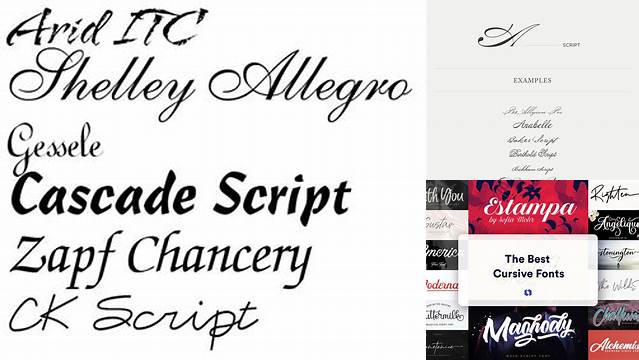
Script Font Examples: A Comprehensive Guide
Hey guys! Ever wondered about those elegant, flowing fonts that look like handwriting? Those are script fonts, and they add a touch of class and personality to any design. This guide dives deep into the world of script fonts, giving you tons of examples and inspiration. We'll cover everything from classic calligraphy styles to modern, playful scripts, so you'll be a script font pro in no time! Let's get started!
Script Fonts: An Overview
Before we dive into specific examples, let's quickly cover the basics. Script fonts are designed to mimic the flowing strokes of handwriting. They can range from formal and traditional to casual and whimsical. Understanding the different types and their uses is key to choosing the right one for your project. Whether you're designing a wedding invitation, a logo, or a website header, the right script font can make all the difference. The key to choosing the right script font lies in understanding the message you want to convey and the overall aesthetic you're aiming for.
Calligraphic Script Fonts
Calligraphic Fonts: Classic Elegance
Calligraphic script fonts are inspired by traditional calligraphy, characterized by their elegant, flowing strokes and formal appearance. These fonts often feature thick and thin lines, adding a touch of sophistication to any design. Think of fonts that look like they were penned by a skilled calligrapher. These are perfect for wedding invitations, certificates, and anything that needs a touch of timeless elegance. The beauty of calligraphic script fonts lies in their ability to evoke a sense of tradition and refinement. Using them can instantly elevate your design, making it feel more polished and professional. Choosing the right calligraphic script font involves considering the specific mood and formality you want to achieve.
Copperplate Script Font
Copperplate is a classic calligraphic style known for its delicate, flowing lines and high contrast between thick and thin strokes. This script font exudes elegance and is often used for formal invitations, certificates, and other high-end designs. Imagine the beautifully handwritten invitations of the 18th and 19th centuries – that's the essence of Copperplate. Its refined appearance makes it a popular choice for projects that require a touch of sophistication. When using Copperplate script font, consider its legibility, especially in smaller sizes. While it's stunning, it's crucial that your message remains clear and readable.
Spencerian Script Font
Spencerian script font is another classic calligraphic style, characterized by its graceful, flowing letters and smooth connections. It's a bit less formal than Copperplate but still maintains a high level of elegance. Think of old business documents and formal correspondence – Spencerian was a popular choice for these applications. It’s perfect for adding a touch of class to invitations, branding materials, and more. Spencerian script font is all about fluidity and movement, creating a sense of dynamism on the page. This makes it a great choice for projects that need to feel both elegant and approachable.
Formal Script Fonts
Formal Script Fonts: Sophistication and Grace
Formal script fonts are designed for occasions that demand elegance and sophistication. They often feature elaborate flourishes and refined letterforms, making them perfect for wedding invitations, formal announcements, and high-end branding. These fonts are the go-to choice when you want to convey a sense of luxury and exclusivity. The key to using formal script fonts effectively is to pair them with a clean, simple secondary font to ensure readability. Overdoing the flourishes can make your design look cluttered, so balance is essential. Choosing the right formal script font can instantly elevate your project, giving it a touch of timeless beauty.
Edwardian Script Font
Edwardian script font is a classic choice for formal designs, known for its ornate flourishes and elegant letterforms. It evokes a sense of old-world charm and sophistication, making it ideal for wedding invitations, certificates, and other special occasions. Imagine the graceful handwriting of the Edwardian era – that’s the inspiration behind this script font. Its delicate details and flowing lines add a touch of romance and refinement to any project. While Edwardian script font is beautiful, it’s important to use it sparingly to avoid overwhelming your design. A little goes a long way in conveying its elegance.
Kuenstler Script Font
Kuenstler script font is another elegant option for formal designs, characterized by its flowing, rhythmic strokes and calligraphic feel. It's slightly less ornate than Edwardian but still maintains a high level of sophistication. Think of it as a more modern take on classic calligraphy. This script font is perfect for adding a touch of elegance to invitations, branding, and more. The rhythmic quality of Kuenstler script font makes it visually appealing and easy on the eyes, even in longer passages of text. This makes it a versatile choice for projects that need to be both beautiful and readable.
Casual Script Fonts
Casual Script Fonts: Friendly and Approachable
Casual script fonts are all about creating a friendly, approachable vibe. They often mimic natural handwriting, with a relaxed and informal feel. These fonts are perfect for branding, social media graphics, and any project where you want to connect with your audience on a personal level. The beauty of casual script fonts lies in their versatility. They can be used for a wide range of applications, from playful designs to more serious projects that need a touch of warmth. Choosing the right casual script font involves considering the specific personality you want to convey. Are you going for a fun, whimsical feel or a more sophisticated, handwritten look?
Brush Script Font
Brush script font mimics the look of handwriting created with a brush, featuring thick and thin strokes and a dynamic, hand-painted feel. It’s a popular choice for designs that need a touch of personality and informality. Think of hand-lettered signs and posters – that’s the essence of Brush script font. Its energetic appearance makes it a great choice for logos, headlines, and more. When using Brush script font, it’s important to consider its legibility, especially in smaller sizes. While it's visually striking, clarity is key to ensuring your message is understood.
Handwritten Script Font
Handwritten script fonts are designed to look like, well, actual handwriting! They often have a slightly imperfect, natural feel, making them perfect for adding a personal touch to your designs. Think of handwritten notes and letters – that’s the vibe these fonts are going for. They’re great for invitations, social media graphics, and anything that needs a human touch. The charm of handwritten script fonts lies in their authenticity. They make your designs feel more personal and relatable, which can be a big advantage in connecting with your audience.
Modern Script Fonts
Modern Script Fonts: Sleek and Stylish
Modern script fonts blend the elegance of traditional script with a contemporary aesthetic. They often feature clean lines, geometric shapes, and a minimalist feel, making them perfect for modern branding, websites, and editorial designs. These fonts are all about creating a sophisticated yet approachable look. The key to using modern script fonts effectively is to pair them with a clean, sans-serif font for contrast. This combination creates a balanced and visually appealing design. Choosing the right modern script font can give your project a fresh, contemporary edge.
Signature Script Font
Signature script fonts mimic the look of a handwritten signature, with flowing strokes and a personal touch. They're often used for logos, watermarks, and adding a personal touch to designs. Think of the elegant signature at the bottom of a letter – that's the inspiration behind these fonts. They're perfect for creating a sense of authenticity and professionalism. When using Signature script font, it’s important to ensure that it’s legible and reflects the personality of the brand or individual it represents. A well-chosen signature script font can be a powerful branding tool.
Display Script Font
Display script fonts are designed to be used in larger sizes, such as headlines and titles. They often feature bold strokes, unique letterforms, and a strong visual impact. These fonts are all about making a statement. Think of eye-catching posters and magazine covers – that’s the kind of impact Display script fonts can create. The key to using Display script fonts effectively is to choose one that complements your overall design aesthetic. While they're designed to stand out, they should still harmonize with the other elements of your project.
Retro Script Fonts
Retro Script Fonts: Vintage Charm
Retro script fonts evoke a sense of nostalgia, often inspired by the lettering styles of the mid-20th century. They feature flowing lines, playful curves, and a vintage aesthetic, making them perfect for retro-themed designs, branding, and more. Think of old advertisements and signage – that’s the kind of charm these fonts bring to the table. The beauty of retro script fonts lies in their ability to transport your audience to another time. They're perfect for creating a sense of history and authenticity in your designs. Choosing the right retro script font involves considering the specific era you want to evoke.
1950s Script Font
1950s script fonts are characterized by their playful curves, bold strokes, and a cheerful, optimistic vibe. They evoke the iconic designs of the 1950s, making them perfect for retro-themed projects and designs with a vintage feel. Think of classic diner signs and soda shop logos – that's the essence of 1950s script font. Their fun, energetic appearance makes them a great choice for projects that need a touch of nostalgia. When using 1950s script font, it’s important to balance their boldness with clean, simple design elements to avoid overwhelming your audience.
1960s Script Font
1960s script fonts often feature groovy, psychedelic curves and a bold, free-spirited aesthetic. They evoke the iconic designs of the 1960s, making them perfect for retro-themed projects and designs with a vintage feel. Think of concert posters and album covers from the era – that's the vibe these fonts are going for. Their unique, eye-catching appearance makes them a great choice for projects that need to stand out. The key to using 1960s script font effectively is to embrace their boldness and pair them with other retro-inspired elements for a cohesive look.
Decorative Script Fonts
Decorative Script Fonts: Artistic Flair
Decorative script fonts are all about adding a touch of artistic flair to your designs. They often feature unique letterforms, elaborate flourishes, and a strong visual impact, making them perfect for headlines, logos, and other display purposes. These fonts are designed to be noticed. The beauty of decorative script fonts lies in their ability to transform ordinary text into a work of art. They're perfect for projects that need a touch of personality and creativity. Choosing the right decorative script font involves considering the specific style and mood you want to convey. Are you going for whimsical and playful, or elegant and sophisticated?
Flourished Script Font
Flourished script fonts are characterized by their elaborate swirls, loops, and decorative elements. They add a touch of elegance and sophistication to any design, making them perfect for invitations, certificates, and other special occasions. Think of ornate calligraphy and vintage signage – that's the inspiration behind these fonts. The key to using flourished script fonts effectively is to use them sparingly. Too many flourishes can make your design look cluttered, so balance is essential. A well-chosen flourished script font can add a touch of timeless beauty to your project.
Unique Script Font
Unique script fonts are all about breaking the mold. They feature unconventional letterforms, unexpected details, and a strong sense of individuality. These fonts are perfect for projects that need to stand out and make a statement. Think of cutting-edge branding and experimental designs – that's where unique script fonts shine. The beauty of unique script fonts lies in their ability to challenge expectations and add a fresh, contemporary edge to your designs. Choosing the right unique script font involves considering the specific message you want to convey and the overall aesthetic you're aiming for.
Script Fonts by Style
Elegant Script Fonts
Elegant script fonts are designed to evoke a sense of sophistication, grace, and refinement. They often feature flowing lines, delicate strokes, and a timeless appeal, making them perfect for formal occasions, high-end branding, and more. Think of classic calligraphy and luxury design – that's the essence of elegant script fonts. The key to using elegant script fonts effectively is to pair them with clean, simple design elements to allow their beauty to shine. A well-chosen elegant script font can elevate your project and give it a touch of timeless class.
Bold Script Fonts
Bold script fonts are designed to make a statement. They feature thick strokes, strong letterforms, and a commanding presence, making them perfect for headlines, logos, and other display purposes. Think of eye-catching signage and impactful branding – that's where bold script fonts excel. The key to using bold script fonts effectively is to ensure they are legible, even in smaller sizes. While they're designed to stand out, clarity is essential. A well-chosen bold script font can add a touch of confidence and authority to your project.
Light Script Fonts
Light script fonts are characterized by their delicate strokes, airy feel, and subtle elegance. They're perfect for adding a touch of sophistication to your designs without overwhelming the overall aesthetic. Think of minimalist designs and understated branding – that's where light script fonts shine. The beauty of light script fonts lies in their subtlety. They add a touch of class without being too demanding of attention. Choosing the right light script font involves considering the specific mood and tone you want to convey.
Script Fonts for Specific Uses
Script Fonts for Logos
When choosing script fonts for logos, legibility and brand personality are key. A good logo script font should be easily readable, even in small sizes, and should reflect the overall feel of your brand. Think of famous logos with script fonts – they often convey a sense of elegance, personality, or trustworthiness. The key to using script fonts in logos effectively is to ensure they are scalable and work well in a variety of contexts. A well-chosen script font can make your logo memorable and impactful.
Script Fonts for Invitations
Script fonts are a classic choice for invitations, especially for weddings and other formal events. They add a touch of elegance and sophistication, setting the tone for the occasion. Think of beautifully handwritten invitations – that's the kind of feeling you want to evoke with a script font. The key to using script fonts for invitations effectively is to ensure they are legible and complement the overall design. A well-chosen script font can make your invitations feel extra special.
Script Fonts for Websites
Using script fonts on websites can add personality and visual interest, but it's important to use them sparingly. Script fonts are best used for headings, titles, and other display purposes, rather than body text. Think of websites with elegant typography – they often use script fonts to create a memorable first impression. The key to using script fonts on websites effectively is to ensure they are legible and don't slow down page loading times. A well-chosen script font can enhance your website's design and make it more engaging.
Script Fonts and Kerning
Understanding Kerning in Script Fonts
Kerning is the adjustment of space between individual letters to create a visually pleasing and readable text. It's especially important in script fonts, where letters often connect and flow into each other. Think of the spacing between letters in a handwritten word – kerning aims to replicate that natural feel. The key to mastering kerning in script fonts is to pay attention to the overall rhythm and balance of the text. A well-kerned script font will look polished and professional.
Common Kerning Issues with Script Fonts
Common kerning issues in script fonts include letters that are too close together, letters that are too far apart, and inconsistent spacing throughout the text. These issues can make your text look awkward and difficult to read. Think of a handwritten word where some letters are crammed together and others are widely spaced – that's the kind of effect you want to avoid. The key to resolving kerning issues in script fonts is to carefully adjust the spacing between individual letters until the text flows smoothly.
Tips for Perfect Kerning in Script Fonts
To achieve perfect kerning in script fonts, start by looking at the overall word shape and identifying any areas that look too tight or too loose. Then, use your design software's kerning tools to adjust the spacing between individual letters. Think of kerning as fine-tuning the rhythm of your text. The key to successful kerning in script fonts is to be patient and pay attention to detail. Small adjustments can make a big difference in the overall appearance of your text.
Pairing Script Fonts
Pairing Script Fonts with Other Fonts
Pairing script fonts with other fonts can create a balanced and visually appealing design. A good rule of thumb is to pair a script font with a clean, simple sans-serif font. This creates contrast and ensures legibility. Think of websites and branding materials that use this combination effectively – they often have a sophisticated and polished look. The key to successful font pairing with script fonts is to consider the overall mood and tone of your project. A well-chosen font pairing can enhance your design and make it more engaging.
Best Font Pairings for Script Fonts
Some of the best font pairings for script fonts include sans-serif fonts like Helvetica, Arial, and Open Sans. These fonts provide a clean, modern contrast to the elegance of script fonts. Think of these pairings as a classic combination – they're timeless and versatile. The key to choosing the best font pairing for your script font is to experiment and see what works best for your specific project. A well-chosen font pairing can elevate your design and make it more professional.
Fonts to Avoid Pairing with Script Fonts
Fonts to avoid pairing with script fonts include other highly decorative or ornate fonts. These combinations can look cluttered and overwhelming. Think of trying to mix too many strong flavors in a dish – it can be overpowering. The key to avoiding poor font pairings with script fonts is to keep it simple and focus on creating contrast. A clean, minimalist font will often be the best choice.
Where to Find Script Fonts
Free Script Font Resources
There are many resources for finding free script fonts online. Websites like Google Fonts, Font Squirrel, and DaFont offer a wide variety of free script fonts for personal and commercial use. Think of these resources as a treasure trove of typographic options. The key to finding great free script fonts is to carefully review the licensing terms and ensure they meet your needs. A well-chosen free script font can be a fantastic addition to your design toolkit.
Premium Script Font Resources
For more unique and high-quality script fonts, consider premium resources like MyFonts, Creative Market, and Adobe Fonts. These websites offer a wide selection of professional-grade script fonts from talented designers. Think of these resources as investing in the quality and impact of your design. The key to choosing a premium script font is to consider the specific needs of your project and select a font that meets those needs. A well-chosen premium script font can elevate your design and make it stand out.
Open Source Script Fonts
Open source script fonts offer a unique blend of quality and affordability. These fonts are often created by talented designers and are available for free use, with the option to contribute back to the project. Think of open source fonts as a collaborative effort to create beautiful typography for everyone. The key to using open source script fonts is to understand the licensing terms and respect the work of the designers who created them. A well-chosen open source script font can be a valuable asset to your design projects.